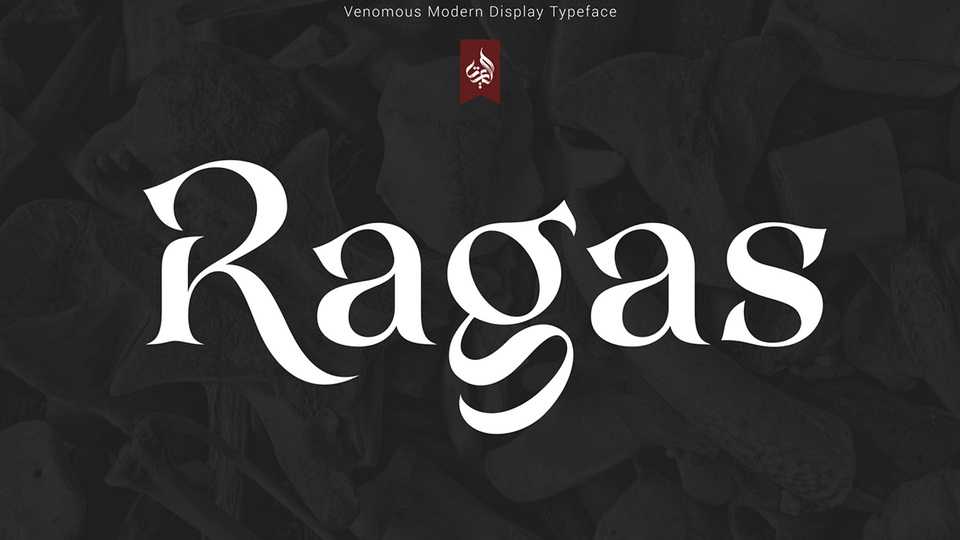
Download Ragas font, a venomous modern display typeface. Ragas in Javanese means something that when you are hit by it, you will feel like being bitten by a snake. Ragas can be snake bones, thorns, or other things that contain snake venom.